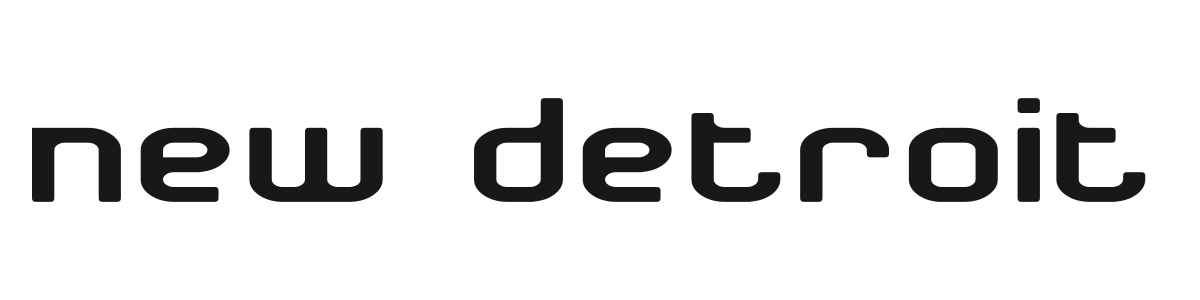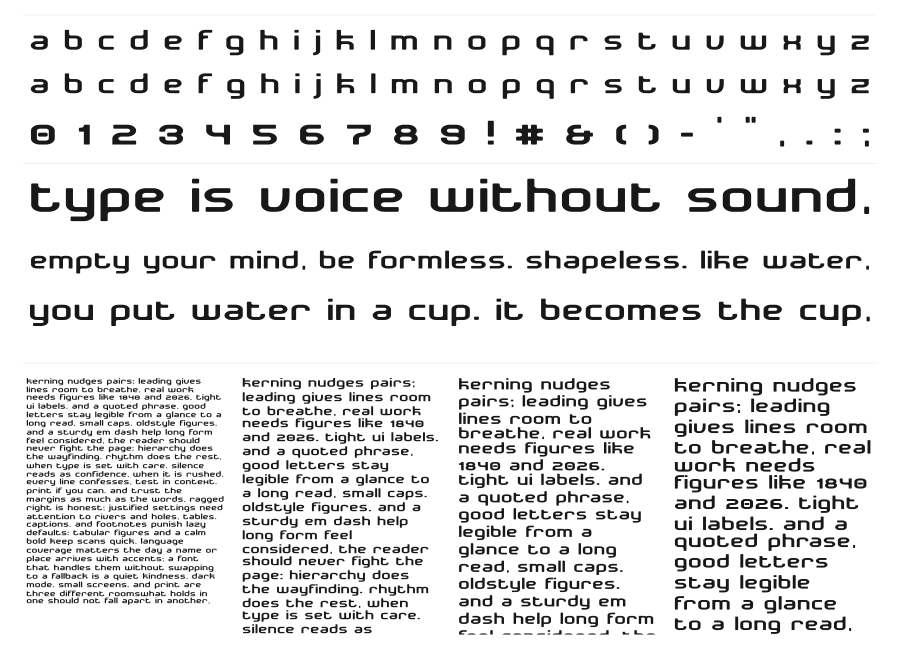
New Detroit
New Detroit is a bold rounded geometric sans with heavy weight and wide proportions. Every terminal curves cleanly into itself, giving the text a smooth, blocky mass that reads with real authority at large sizes. It carries the industrial-techno energy of late-1990s Detroit design culture.